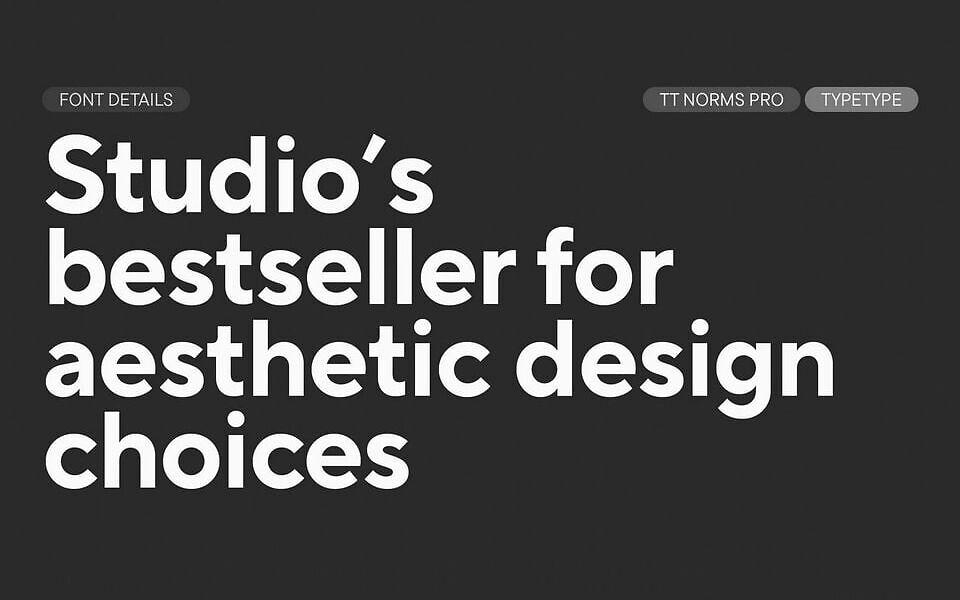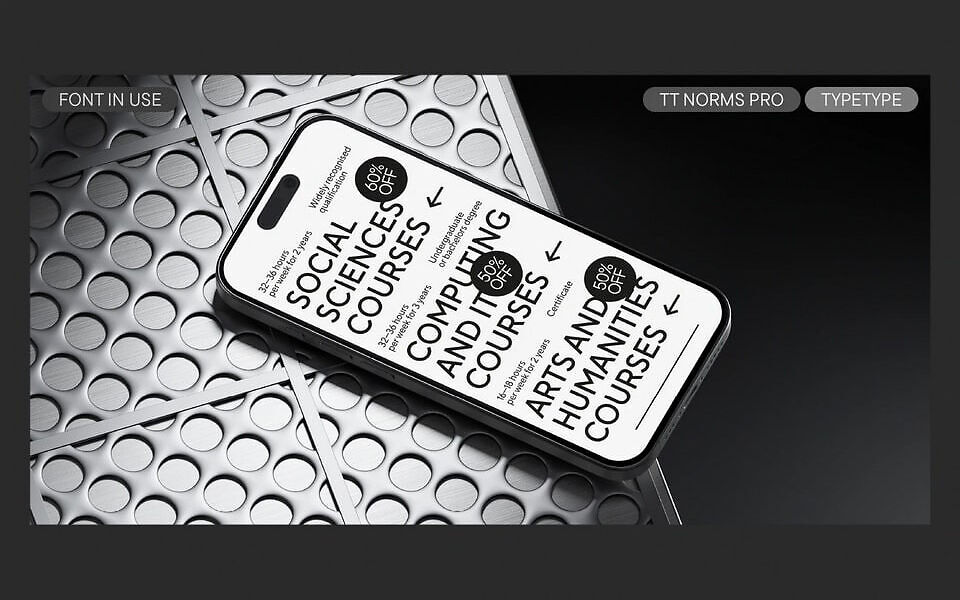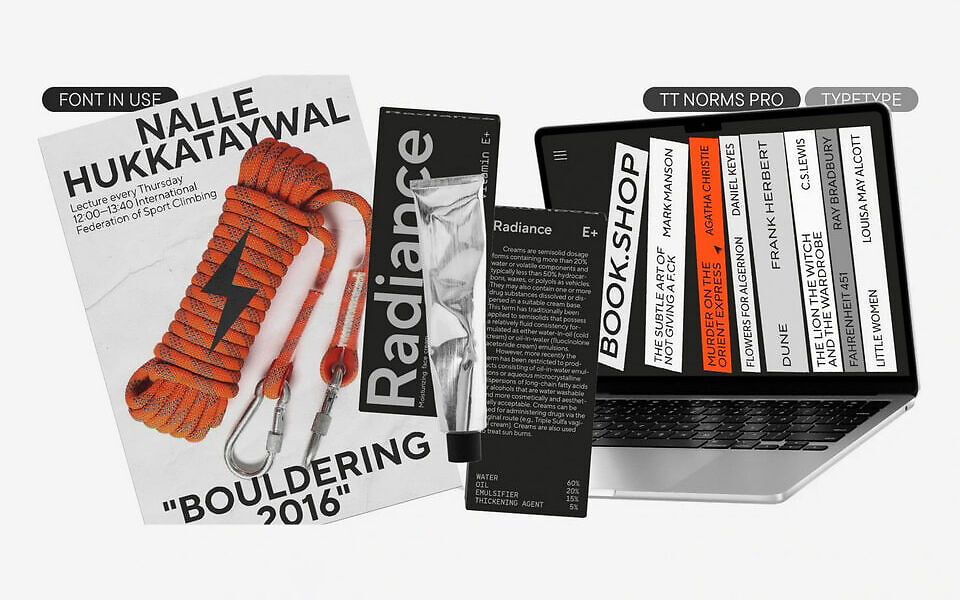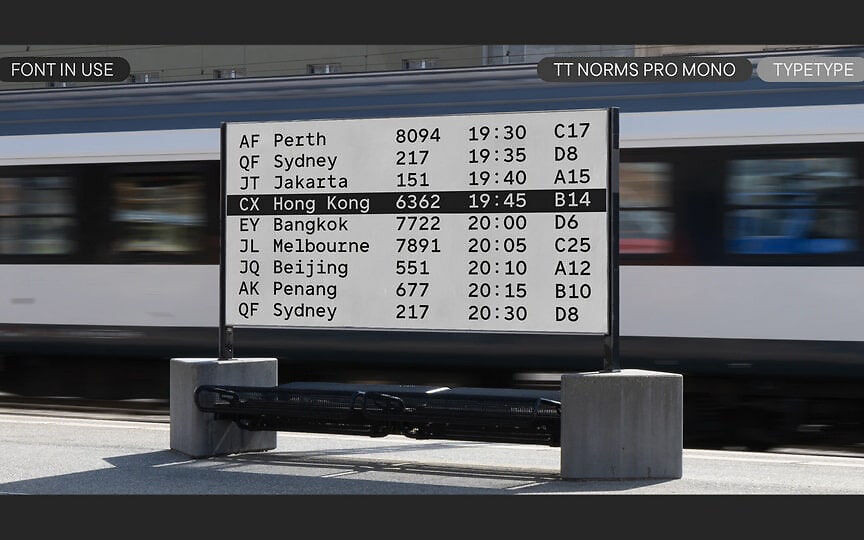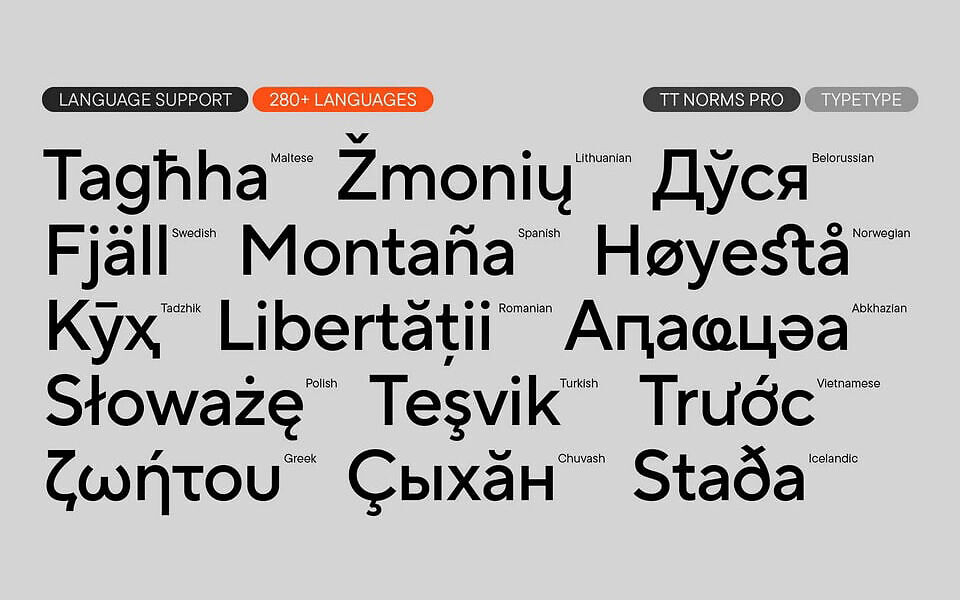
TT Norms Pro is a functional geometric sans serif for aesthetic design choices and TypeType studio’s bestseller. It has been a massive success since its release, and rightfully so! This stylish, elegant, and versatile font will become the full-fledged core of your collection.
On the one hand, TT Norms Pro is aesthetic and functional, which makes it practical for accent placement. On the other hand, the font is relatively neutral to be a perfect “workhorse” with exceptional readability and consistent setting in running text. TT Norms Pro is ideally suited for products in any domain: streaming services, banking, clothing brands, or the automotive industry. It’s equally convenient to use on the web and in printing.
Now, the TT Norms Pro typeface includes the most extensive font package, both in terms of font styles and character sets. The base version of TT Norms Pro consists of 22 fully redesigned font styles and 4 additional subfamilies. Besides, this font boasts the most comprehensive language support in the TypeType collection.
As part of the update, we implemented new stylistic sets, such as various forms of slashed Os, alternate forms for figures 1, 3, 4, and the largest one – alternate forms for the characters “&,” “G,” “M,” “Q,” “Ж,” and “К” in all lettercases of Latin, Cyrillic, and Greek character sets (uppercase, lowercase, and small caps). We designed all these sets based on research: we found out which alternate forms are the most popular among users and can be most frequently seen in fonts. For example, customization requests became one of the reference points for us.
In the 3.300 version, we also modified the functionality of some of the OpenType features and added 4 new ones to make the font even more convenient to use. The typeface’s character set boasts 88 new glyphs as well. For instance, there are now more characters in the Latin small caps set.